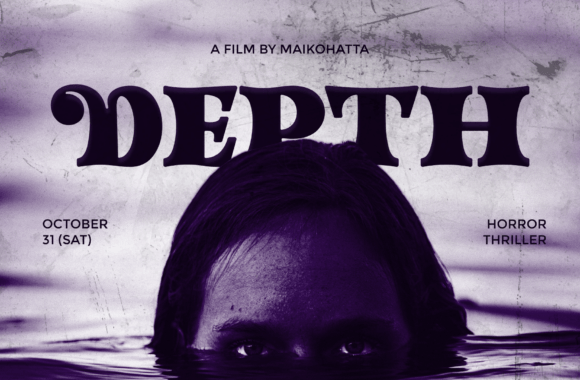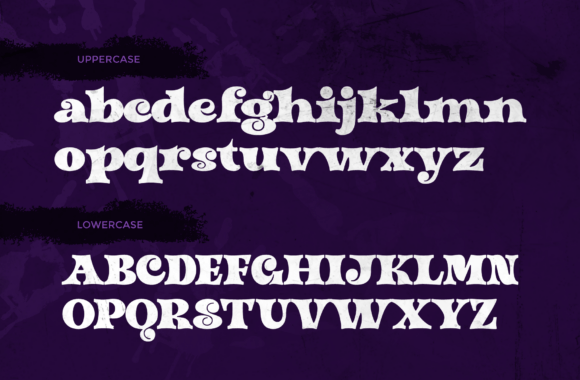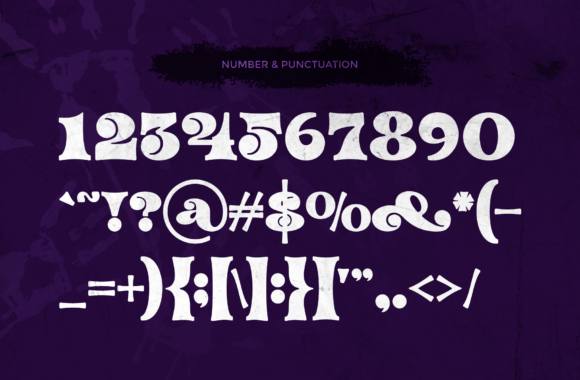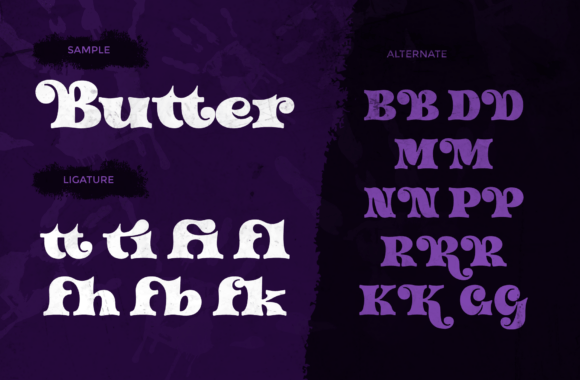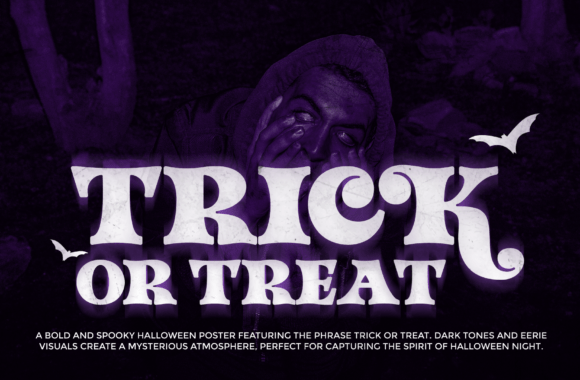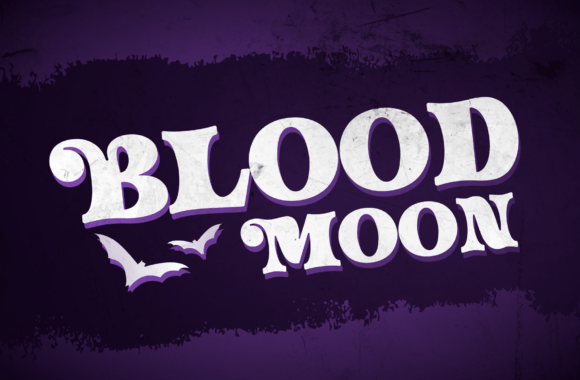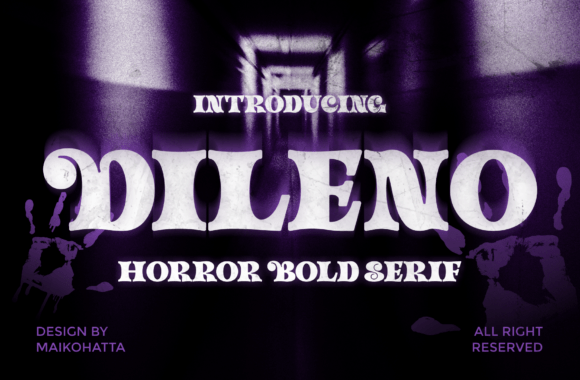
Dileno Font: The Ultimate Choice for Horror-Inspired Designs
In the world of typography, fonts play a crucial role in setting the tone and mood of a design project. For designers and crafters looking to create dark, eerie, or mysterious themes, the Dileno font is an excellent choice. This bold serif typeface boasts a strong horror-inspired aesthetic, making it perfect for a wide range of applications, from horror movie titles to gothic branding.
What is Dileno Font?
Dileno is a bold serif typeface characterized by its thick strokes, dramatic curves, and distressed textures. These features combine to create a spooky yet stylish vibe that is sure to capture the attention of your audience. The font’s unique blend of vintage serif structure and horror elements gives it a distinctive, eye-catching look that stands out in any design project.
Key Features of Dileno Font
- Bold and Striking Appearance: Dileno’s bold presence makes it ideal for designs that require a strong visual impact, such as horror movie titles, Halloween posters, and gothic branding.
- Horror-Inspired Aesthetic: The font’s horror-inspired design elements, including thick strokes and distressed textures, evoke a sense of eeriness and mystery.
- Vintage Serif Structure: Dileno’s serif structure adds a touch of classic elegance to its bold and striking appearance.
- Distressed Textures: The font’s distressed textures give it a worn, aged look that adds to its horror-inspired aesthetic.
Use Cases for Dileno Font
Dileno’s versatility makes it suitable for a wide range of design projects, including:
- Horror Movie Titles: Dileno’s bold and striking appearance makes it perfect for horror movie titles, adding a touch of eeriness and suspense to your project.
- Halloween Posters: The font’s horror-inspired aesthetic makes it an excellent choice for Halloween posters, flyers, and other promotional materials.
- Gothic Branding: Dileno’s unique blend of vintage serif structure and horror elements makes it ideal for gothic branding, adding a touch of mystery and elegance to your brand.
- Book Covers: The font’s bold presence and horror-inspired aesthetic make it perfect for book covers, particularly for genres such as horror, thriller, and mystery.
Why Choose Dileno Font?
With so many fonts available, why choose Dileno for your design project? Here are a few reasons:
- Unique and Eye-Catching Design: Dileno’s distinctive design makes it stand out from other fonts, ensuring your project grabs attention.
- High Versatility: The font’s versatility makes it suitable for a wide range of design projects, from horror movie titles to gothic branding.
- Easy to Read: Despite its bold and striking appearance, Dileno is easy to read, making it perfect for designs that require a strong visual impact without sacrificing legibility.
Tips for Using Dileno Font
To get the most out of Dileno, here are a few tips:
- Use it Sparingly: Dileno’s bold presence can be overwhelming if used excessively. Use it sparingly to create a strong visual impact.
- Pair it with Complementary Fonts: Pair Dileno with complementary fonts to create a visually appealing contrast.
- Experiment with Colors and Textures: Experiment with different colors and textures to enhance Dileno’s horror-inspired aesthetic.
In conclusion, Dileno font is an excellent choice for designers and crafters looking to create dark, eerie, or mysterious themes. Its bold and striking appearance, horror-inspired aesthetic, and versatility make it perfect for a wide range of design projects. With its unique blend of vintage serif structure and horror elements, Dileno is sure to add a hauntingly bold touch to your design project.